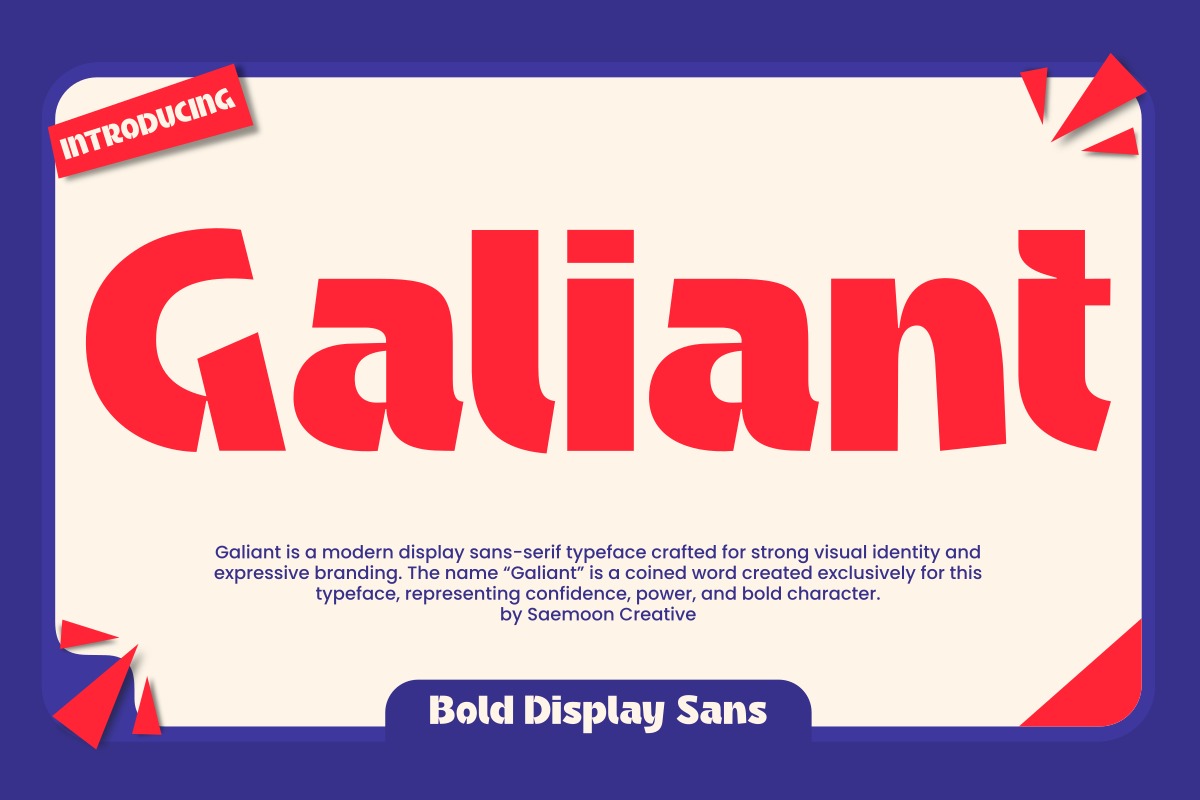
Galiant Font
Galiant Font is a stylish typeface that enhances visual appeal and works effortlessly in many design contexts. Galiant is a modern bold display sans-serif typeface designed to deliver a strong visual identity and confident branding. With its sharp cuts, geometric forms, and powerful presence, Galiant brings a contemporary yet expressive character to any project.
Created as an original, coined-name font, “Galiant” represents boldness, clarity, and a unique personality—making it ideal for designers who want a standout look. The font performs exceptionally well in large sizes, ensuring maximum impact for logos, headlines, posters, and product branding.